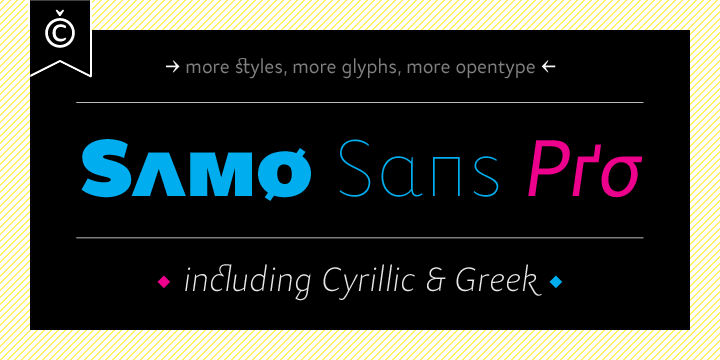
Samo Sans Pro is a typeface created by Samuel Carnoky that combines technical design and dynamic feelings. He wanted this font to be an improved version of basic typeface Samo Sans. Using Samo Sans Pro you can find all the necessary features for professional typesetting.